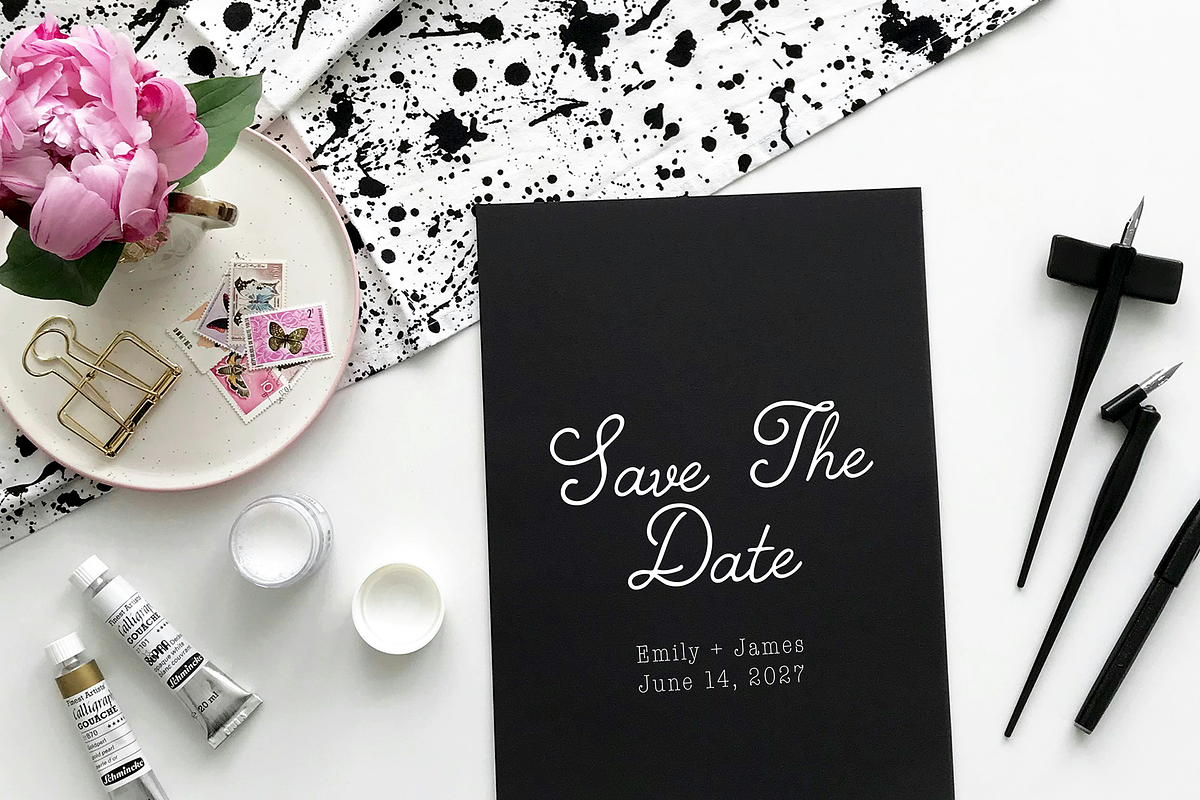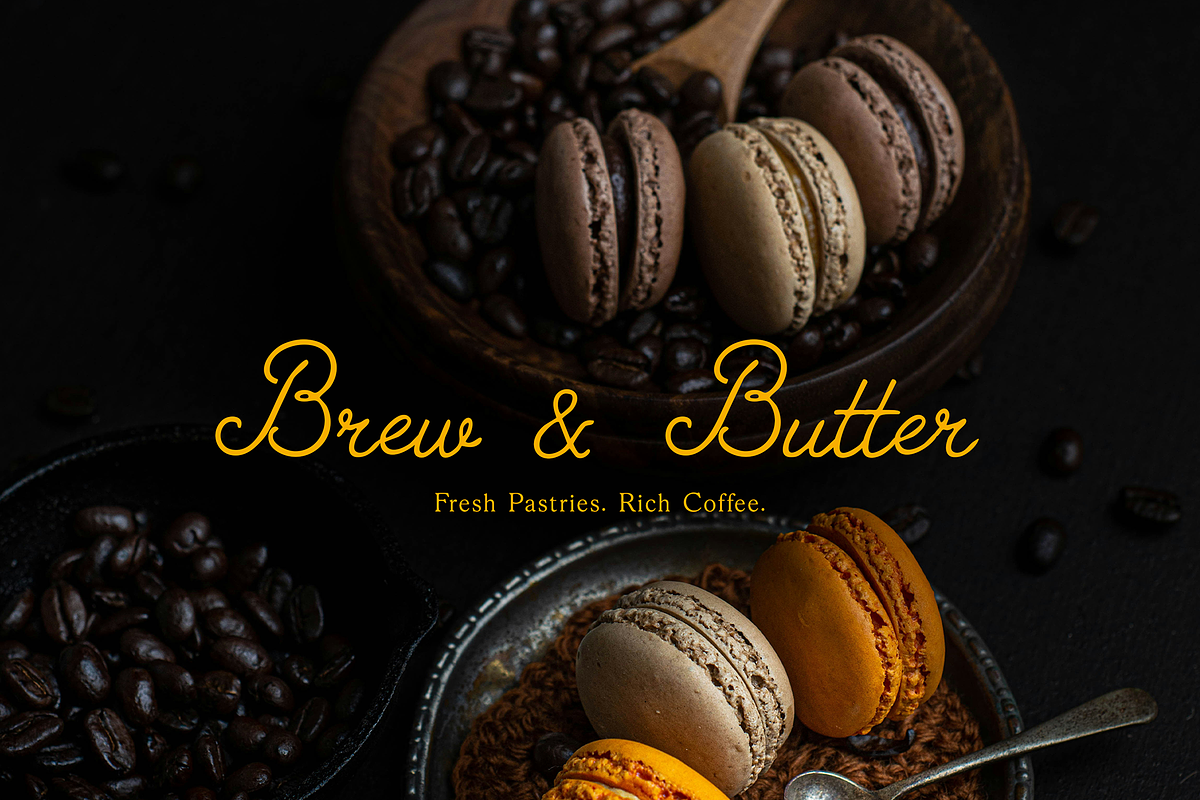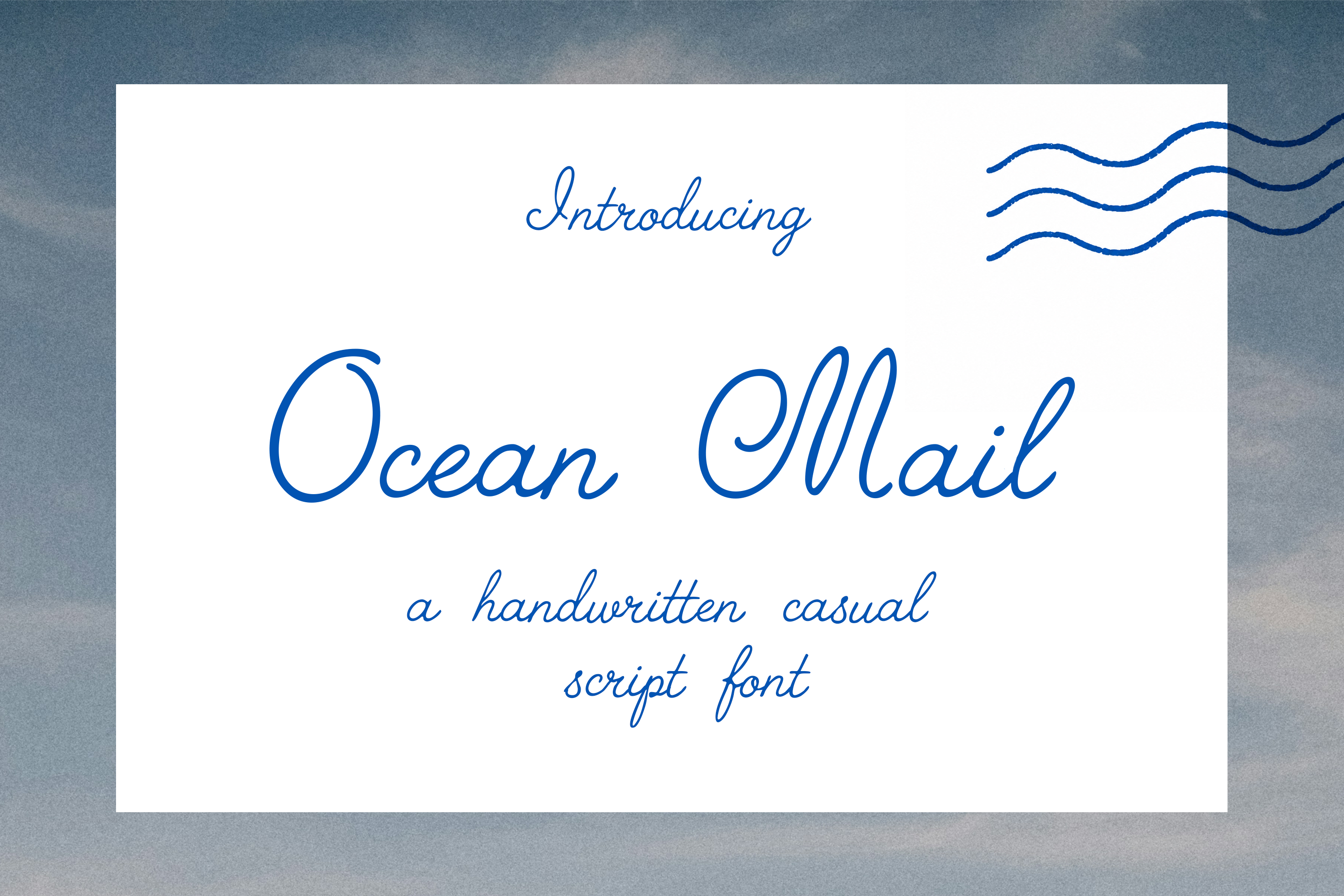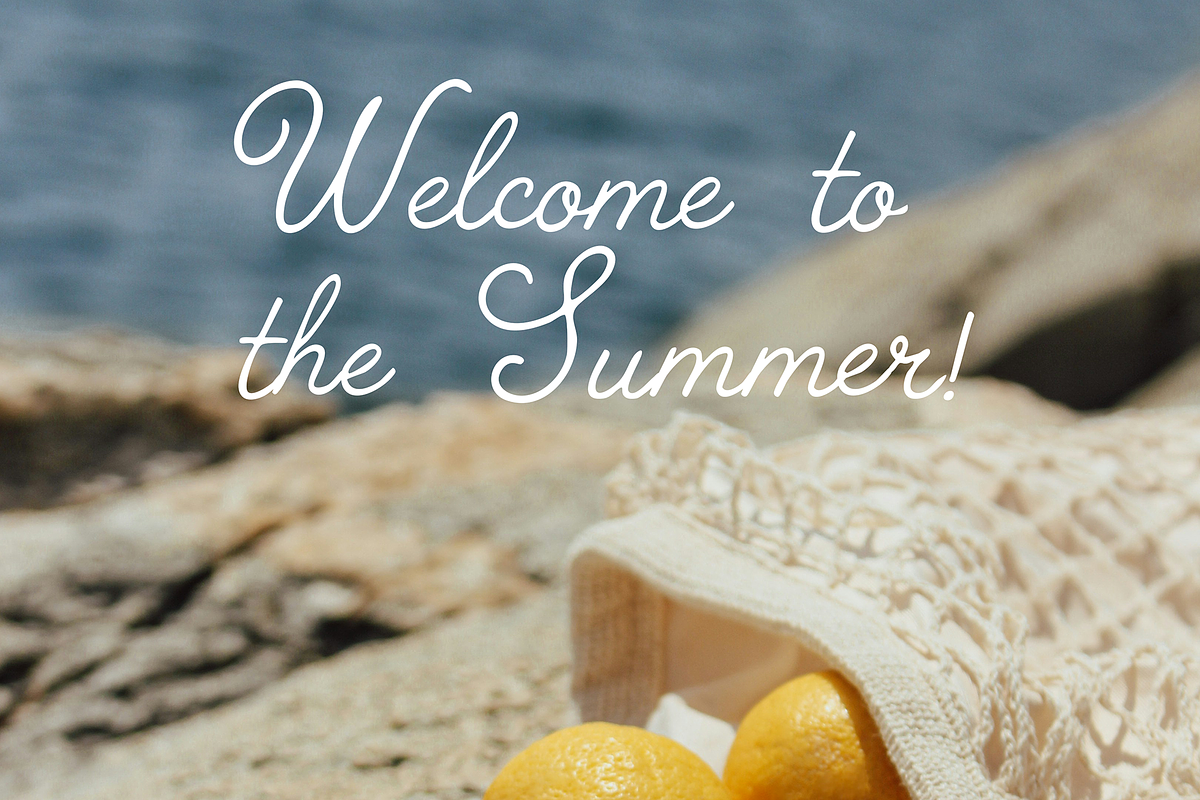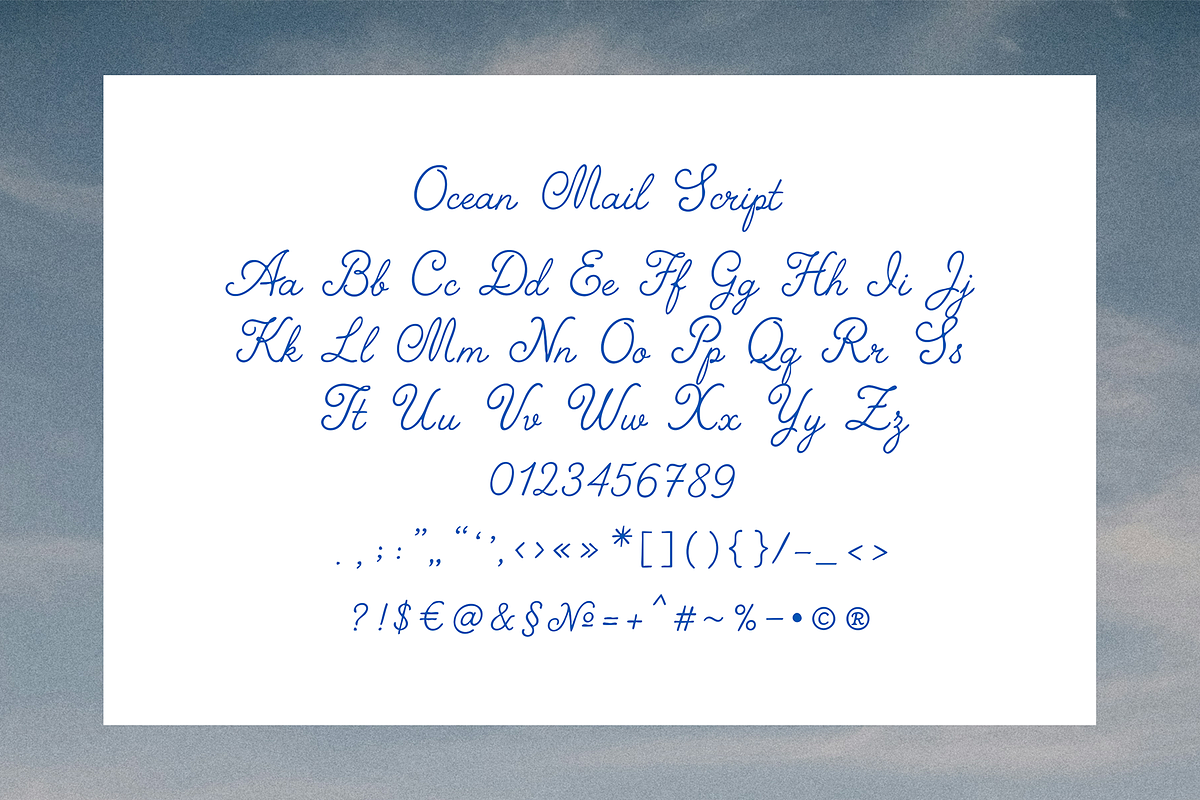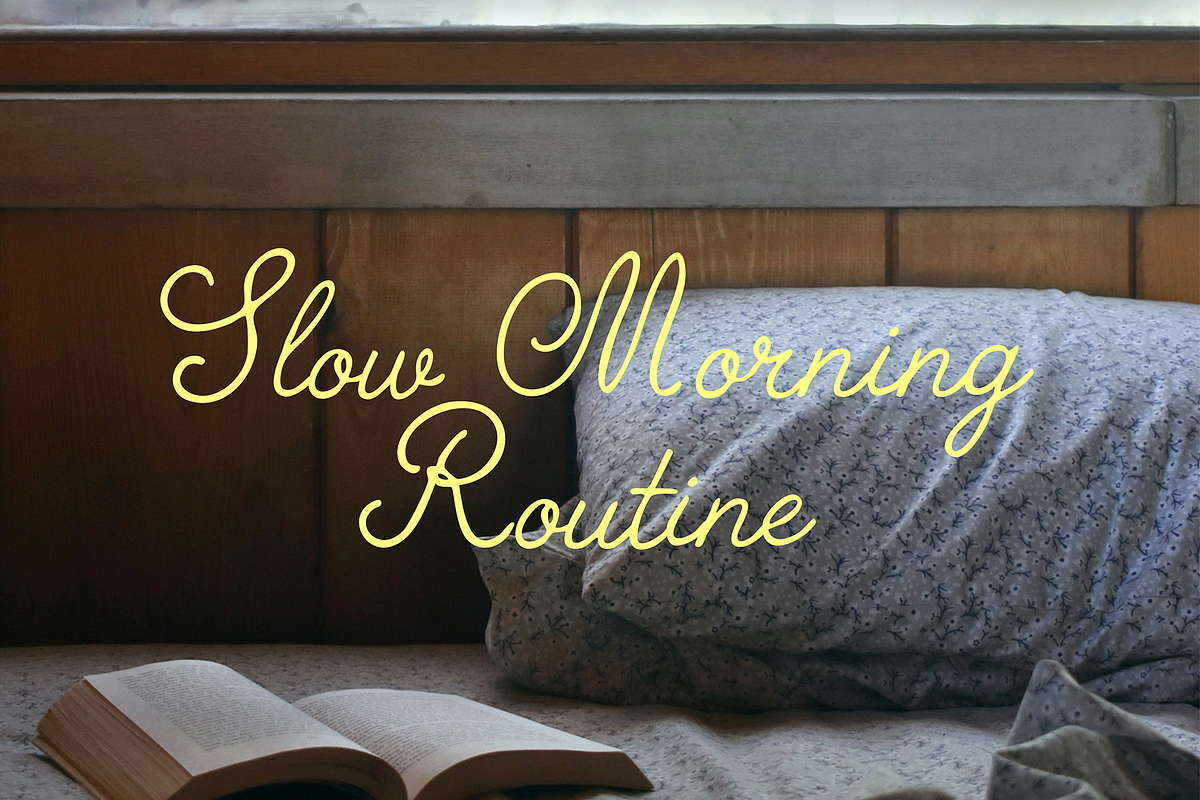
Ocean Mail Font
Ocean Mail is a handwritten casual script font inspired by summer postcards, ocean breeze, and blue ink love letters. Perfect for wedding stationery, save the date cards, logos, branding, invitations, packaging, and social media designs.